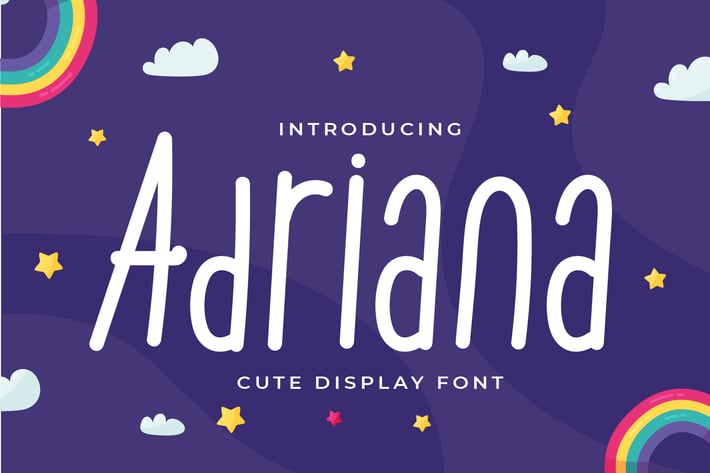
Adriana - Cute Display Font
Introducing Adriana - Cute Display Font
Adriana is a tall and cute handwritten font. Use this font for any crafting project that requires a personalized look!